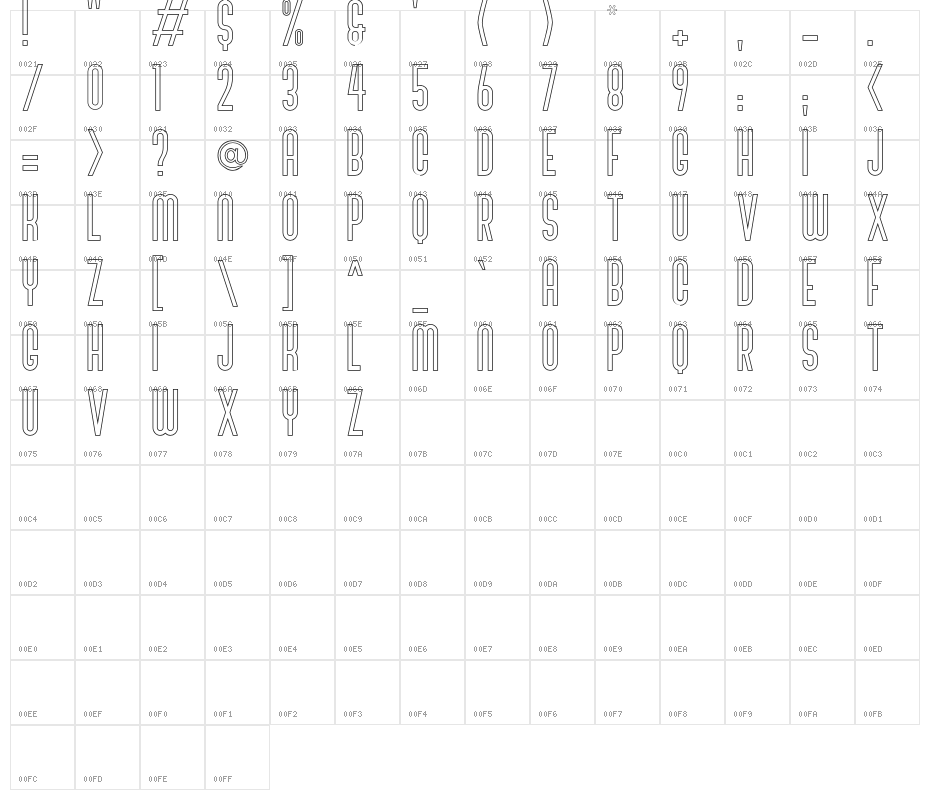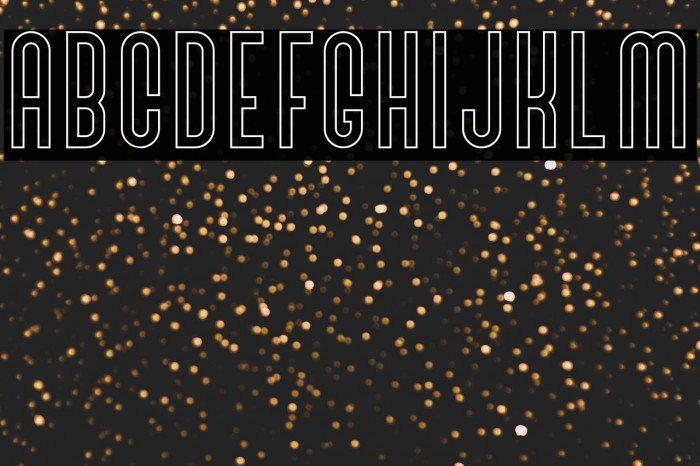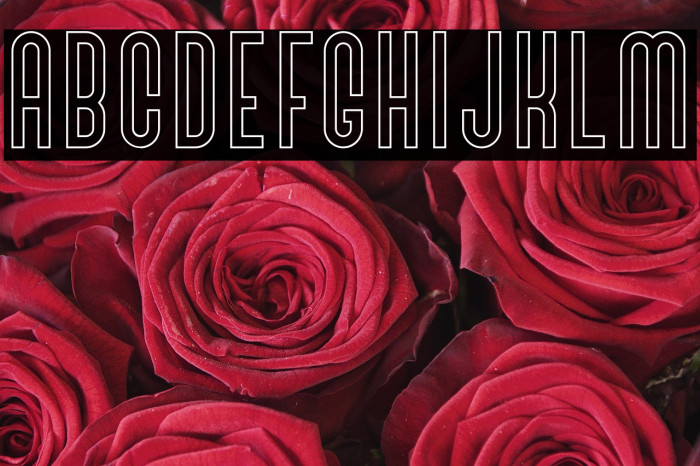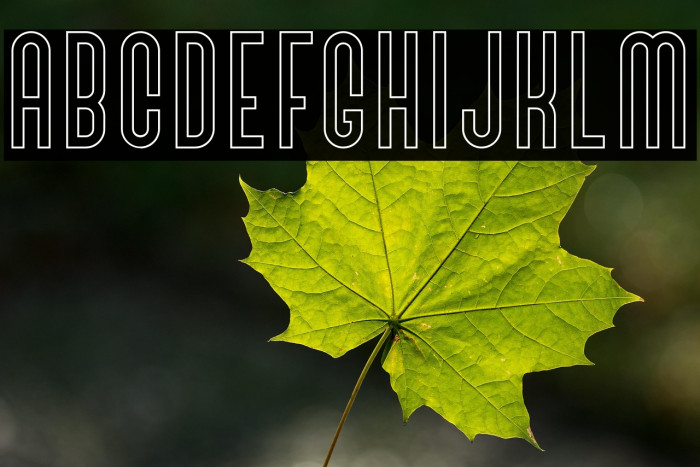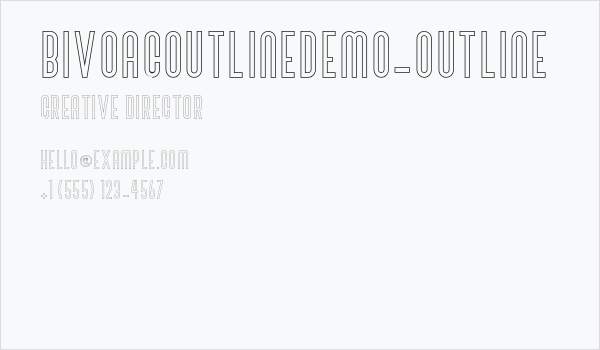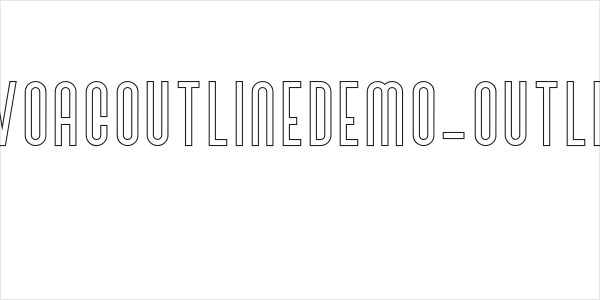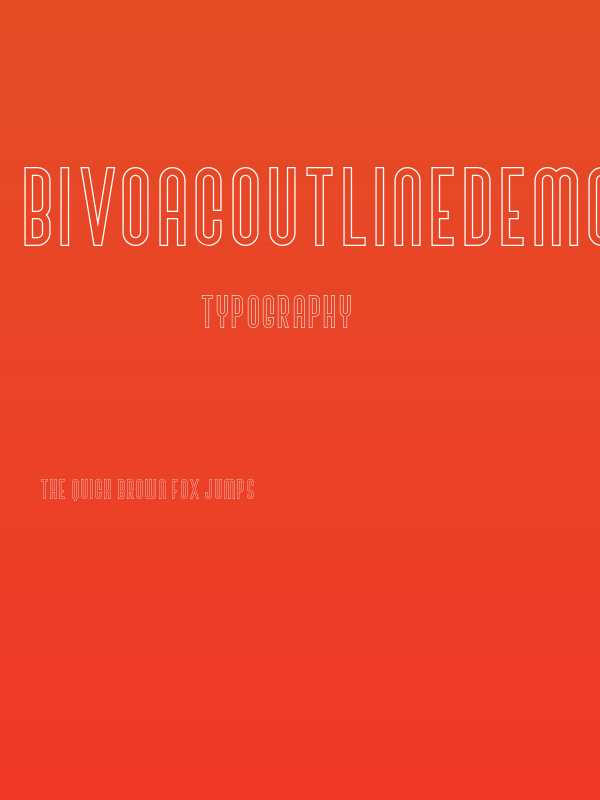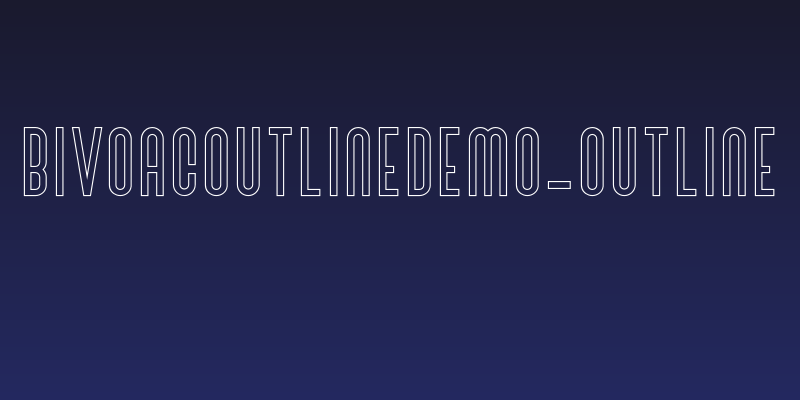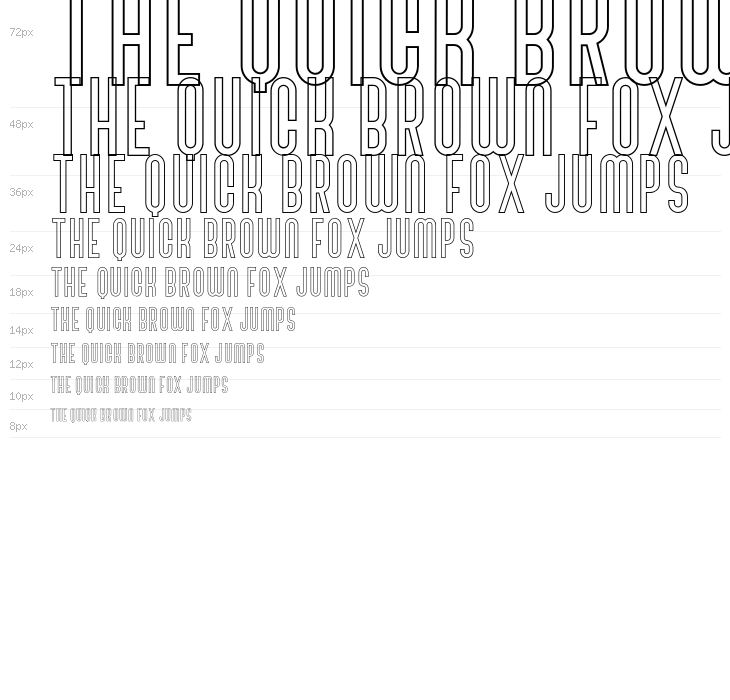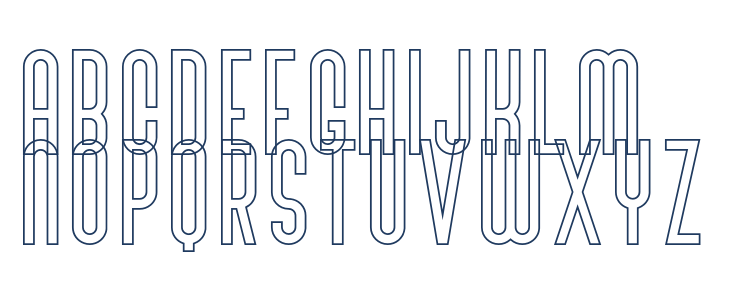
BivoacOutlineDemo-Outline Font
BivoacOutlineDemo-Outline Description
This font features a modern, geometric outline style with clean lines and a structured appearance. The characters are uppercase and lowercase letters, numerals, and a variety of special symbols. The design is characterized by its uniform stroke width and open, airy feel, making it ideal for creating a bold visual impact. The outline nature of the font gives it a unique, contemporary look that stands out in any design. Its simplicity and clarity make it versatile for various applications, while the outlined form adds a touch of sophistication and modernity.
| Proposed Projects | Ideal for branding, posters, headlines, and any design requiring a bold, modern look. |